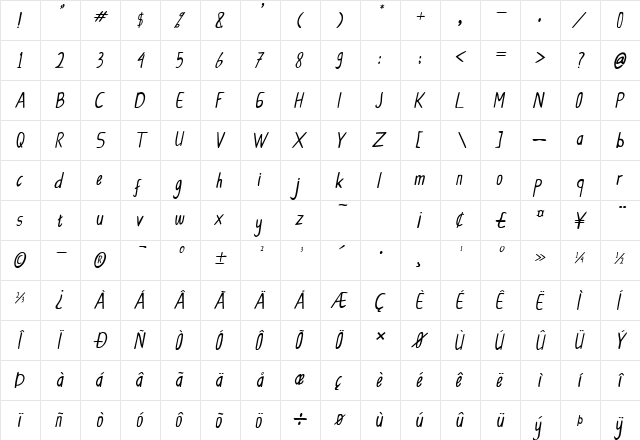
CollBesT Italic Font Preview
CollBesT Italic
CollBesT Italic Font Details
| Designer | Ahmad Muslimin |
Design Context for CollBesT Typeface
CollBesT is a composed and adaptable typeface that performs quietly and consistently across a wide range of design contexts. The dynamic lean of this cut emphasises speed and emphasis in any layout.
Pro Tip: Use CollBesT for emphasis, pull quotes, and subheadings where its slanted energy can add rhythm to the layout.